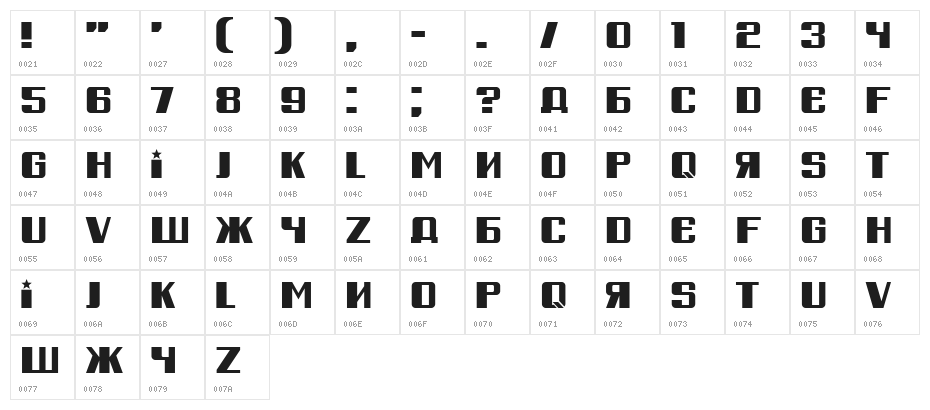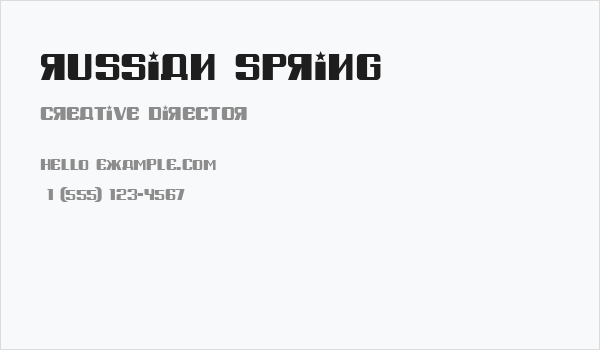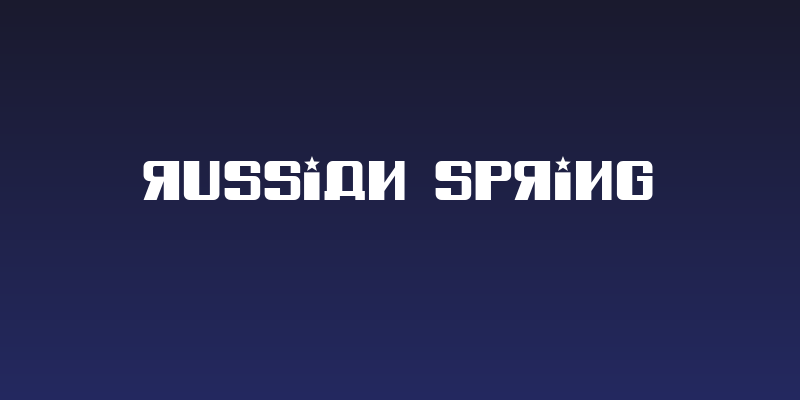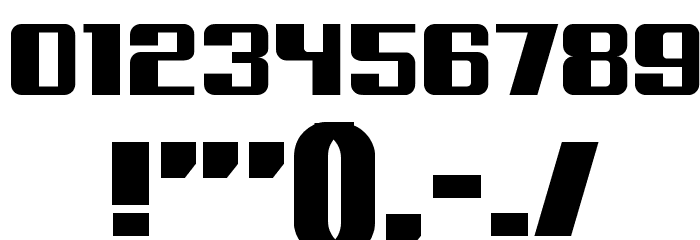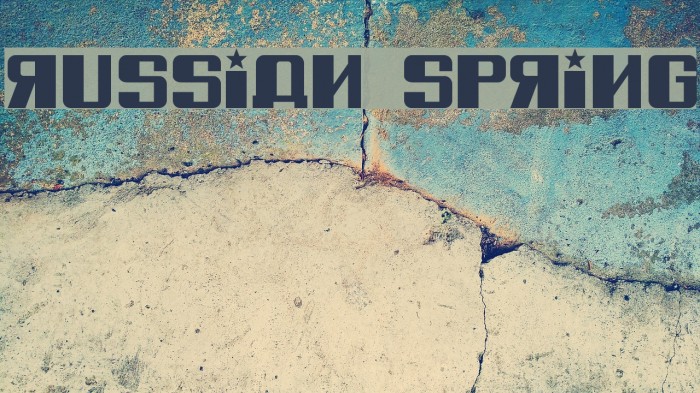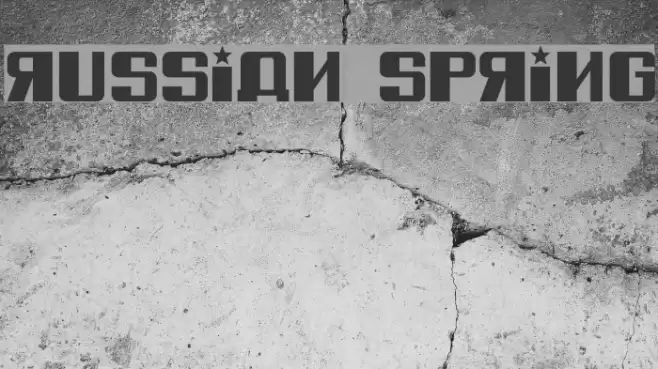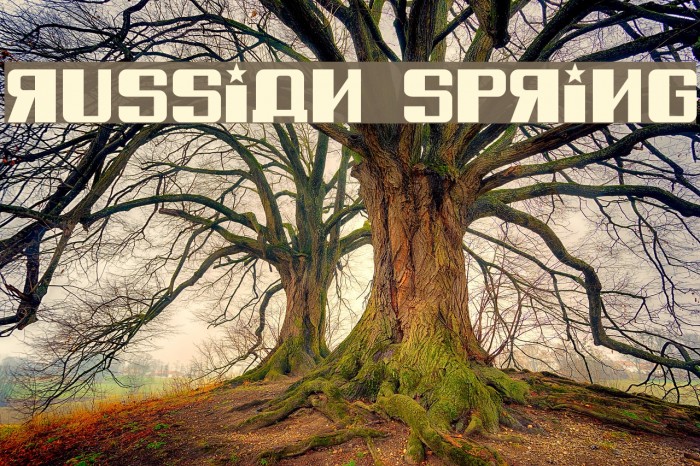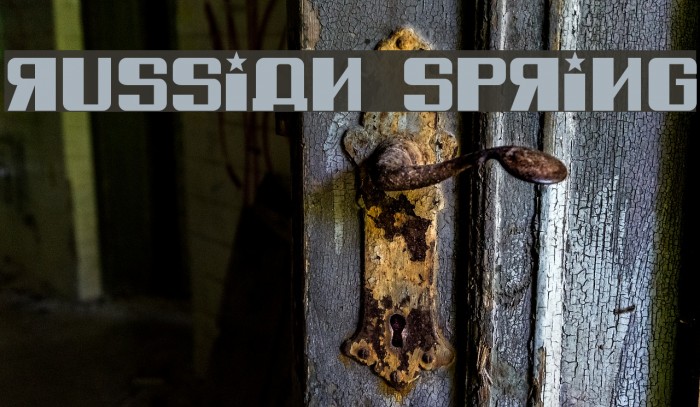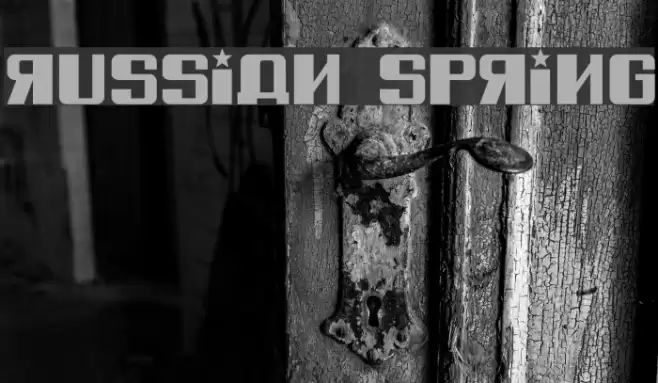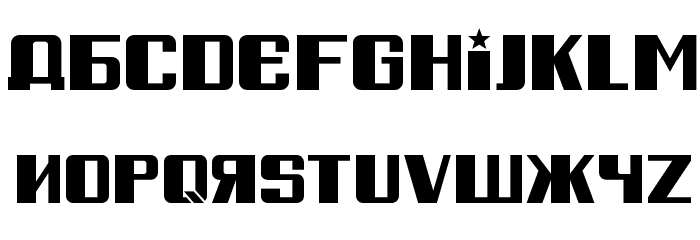
Russian Spring Font
Russian Spring Description
This font features a bold and striking design with a strong geometric structure. The characters are blocky and robust, incorporating unique elements such as stars and stripes within certain letters, adding a decorative flair. The uppercase letters are particularly prominent, with a uniform height and width that convey a sense of stability and strength. The numbers and special characters maintain the same boldness, ensuring consistency across all elements. This font is designed to capture attention and make a statement, ideal for impactful visual communication.
| Proposed Projects | Ideal for posters, banners, branding, and any project requiring a bold, eye-catching typeface. |